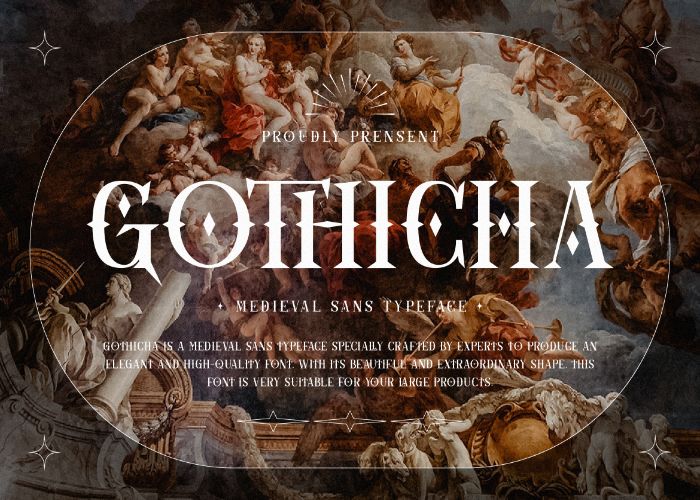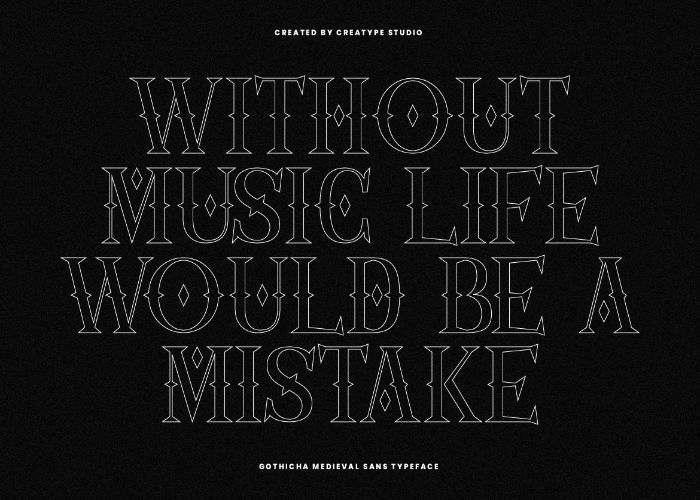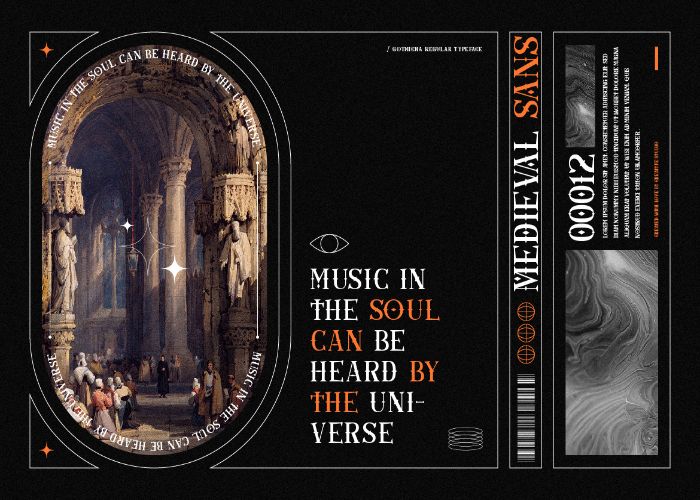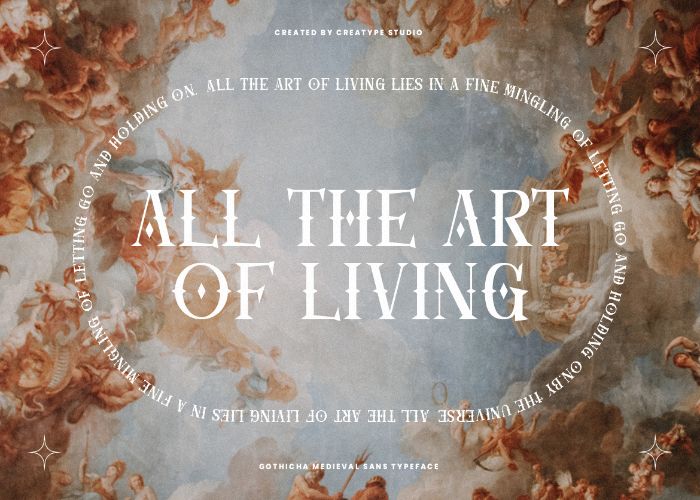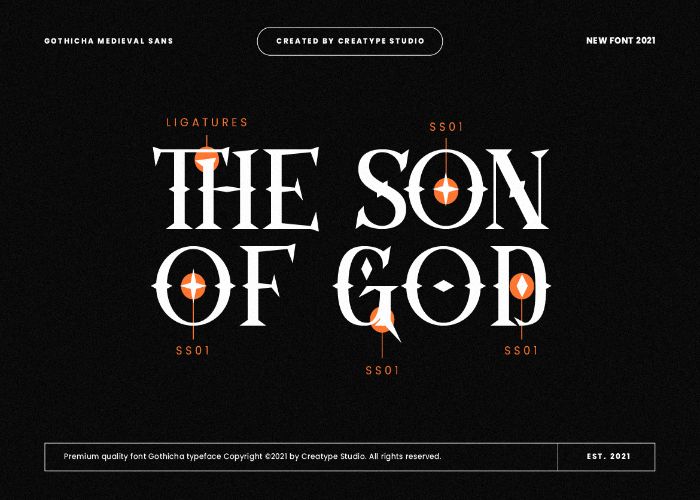
Gothicha Medieval Sans Free Font
Crafted by experts to produce an elegant and high-quality font… Presenting The Gothicha Medieval Sans Free Font. With its beautiful and extraordinary shape, this font is suitable for your large products.
• ▪️Ligature & Alternate